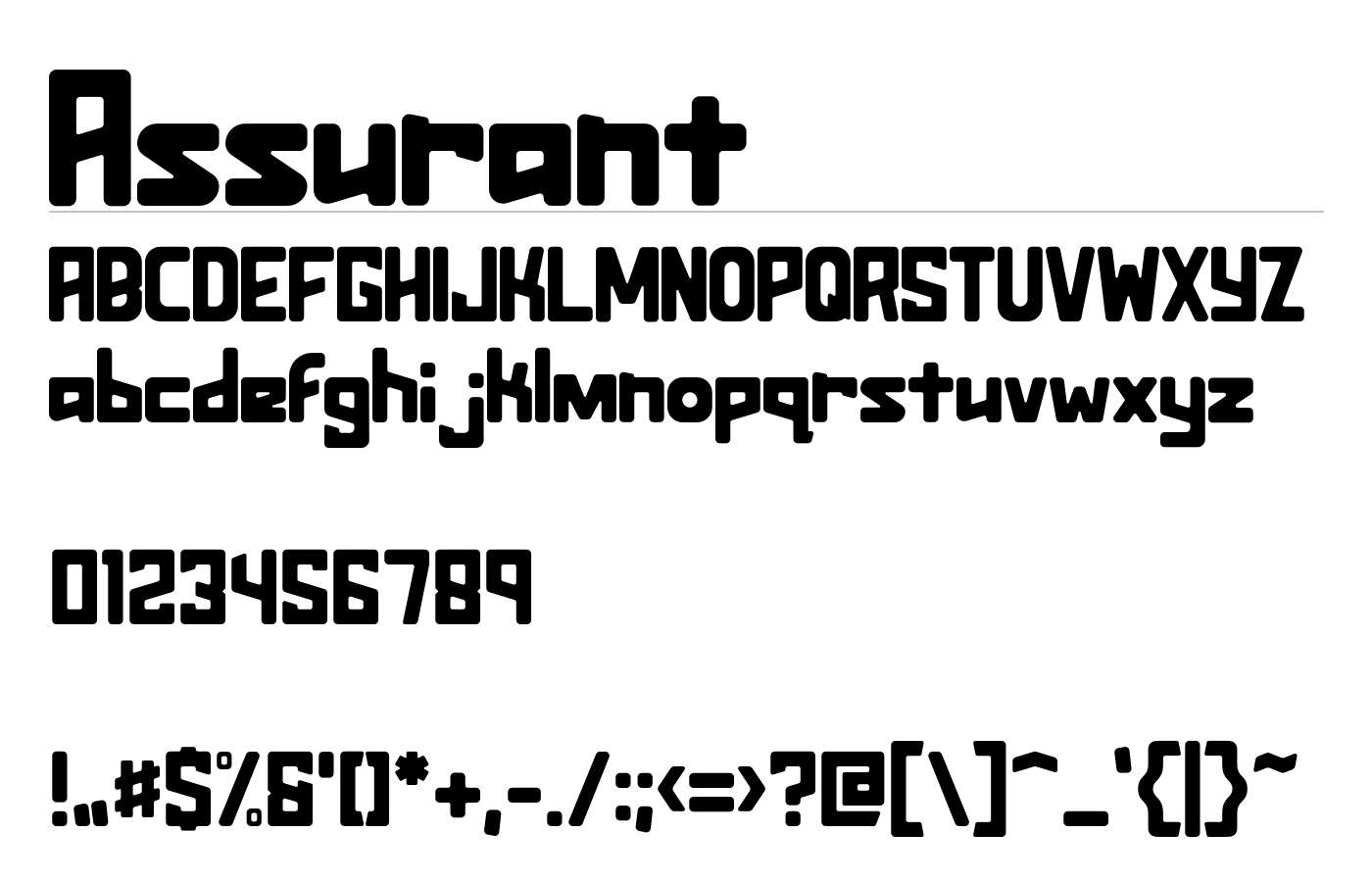
Assurant is a bold, condensed sans serif font with a modern, geometric feel and a distinctly strong presence. Its consistent stroke weight, slightly quirky letter shapes, and tight spacing give it a playful yet assertive personality, making it ideal for bold headlines, logos, and branding that aim to stand out with a contemporary edge. This font works well where attention-grabbing, memorable typography is needed without sacrificing readability.
Assurant Font